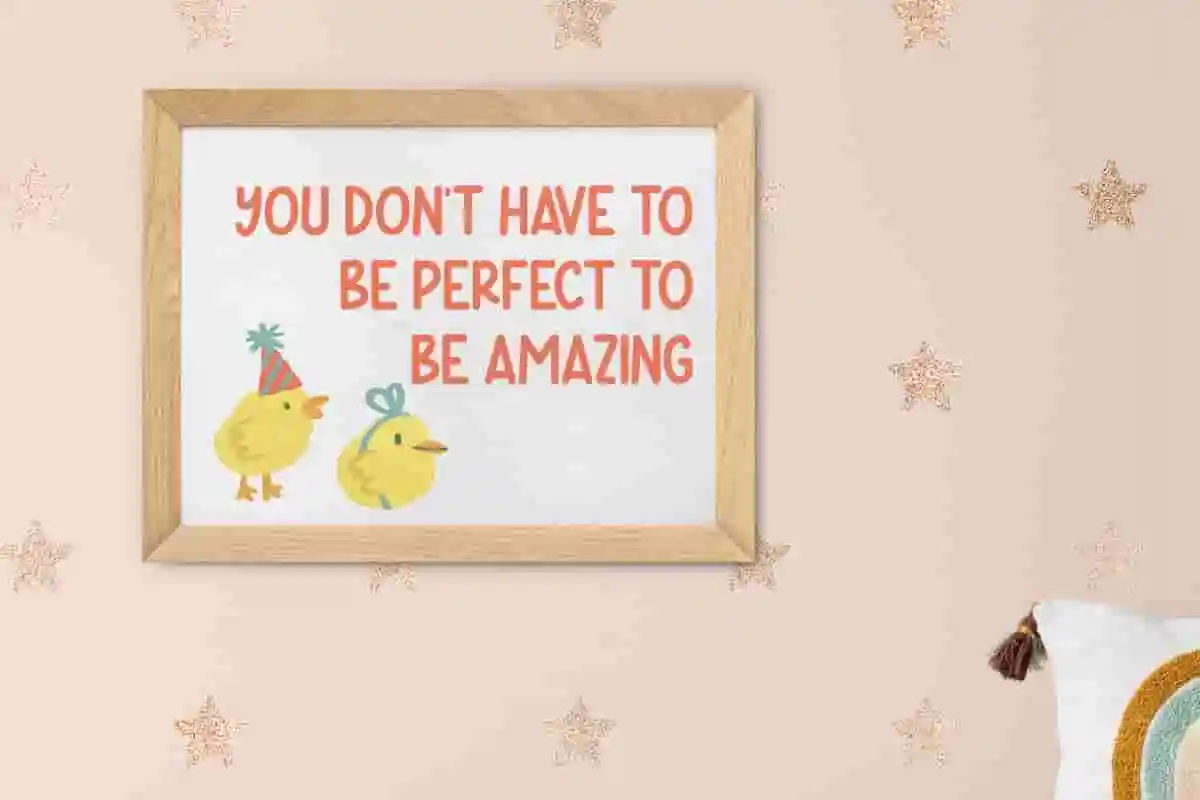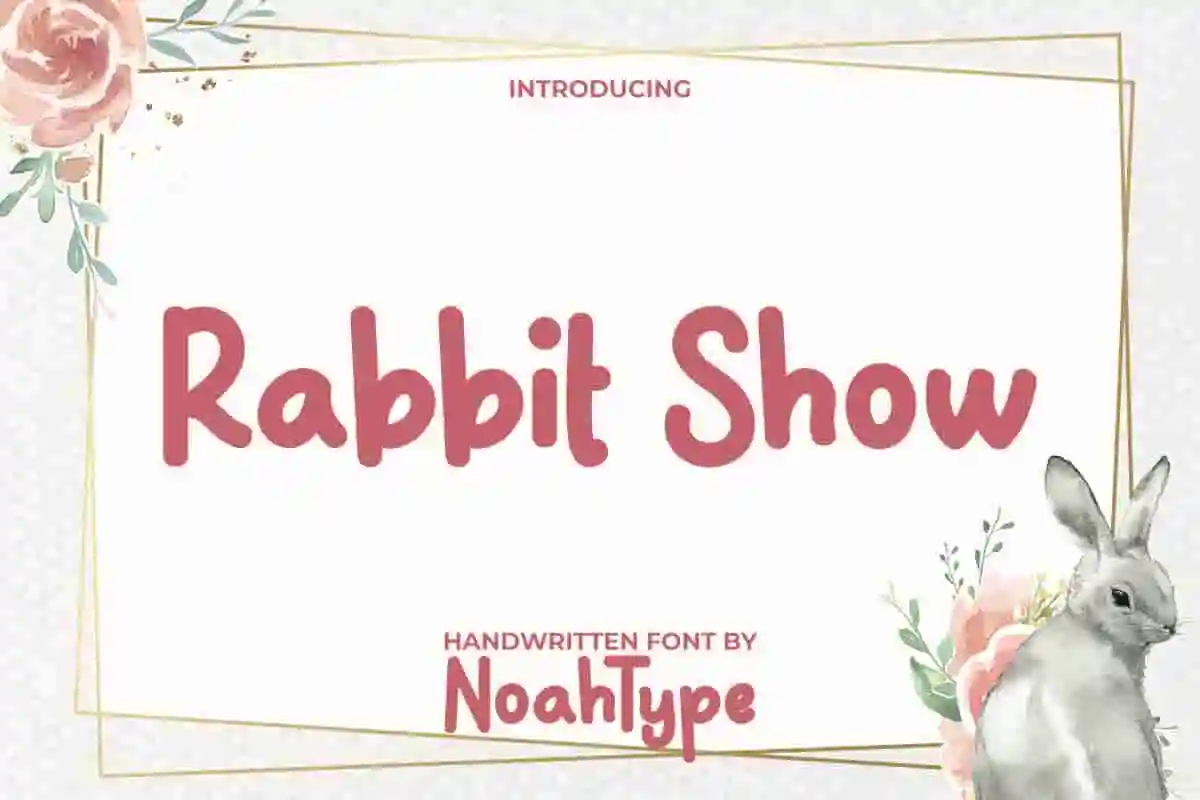
Rabbit Show Font is a playful modern handwritten font. This font has a shape that looks natural and is suitable for designs that require an adorable appearance. You can use this font for any designs, such as brand image, catalog, comic books, cover, custom design, greeting card, invitation, label, poster, product packaging, quote, stationery, web, and more!
Rabbit Show Font includes full set of Uppercase and Lowercase Basic Characters, Numerals, Punctuation, and Symbol. This font is inspired by the cuteness of rabbits expressed in written form, also a perfect choice for many industries, such as advertisement, bakery and pastry, beauty product, event or festival, fashion, kids stuff, printing, publishing, toys, etc.